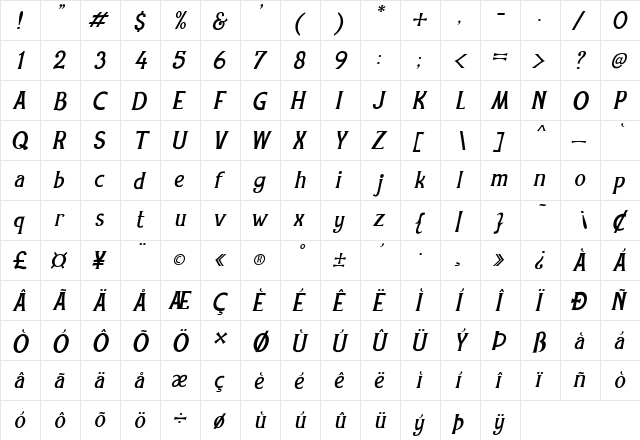
Rexmone DEMO Italic
Design Context for Rexmone DEMO Typeface
Rexmone DEMO takes a measured approach to typography — its balanced proportions and neutral character make it a reliable workhorse for both digital and print work. The slanted form adds forward momentum and visual energy.